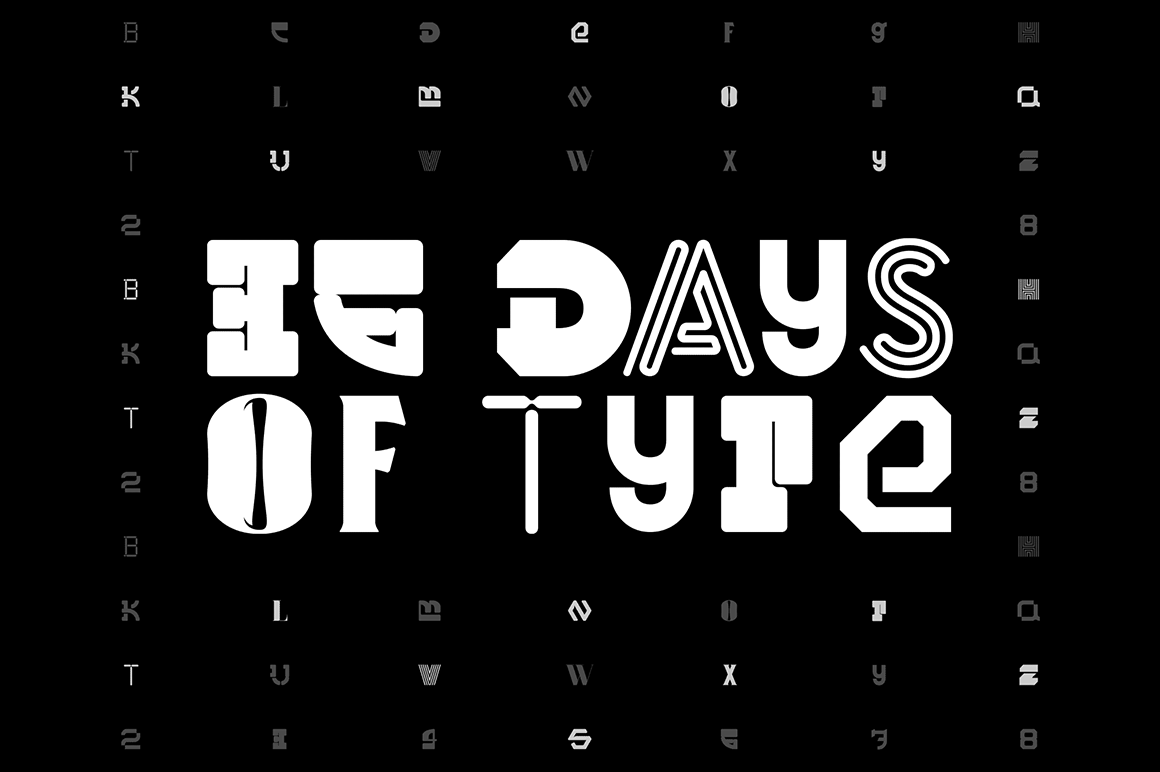
36 Days of Type Typeface
36 Days of Type Typeface — For this year's edition of this collaborative project around typography I wanted to create some little sparks that I would be able to develop further into complete typefaces. From that idea I decided to create an actual typeface with all of the letters that I submitted. This is my small contribution to the #36DaysOfType community.
– ESP. 36 Days of Type Typeface — Este año para la edición de este proyecto colaborativo relacionado con la tipografía quise sembrar una pequeñas semillas para lo que serán futuros proyectos de tipografías completas. A raíz de esa idea decidí crear una tipografía con todas las letras que he desarrollado. Esta es mi pequeña contribución a la comunidad del #36DaysOfType.